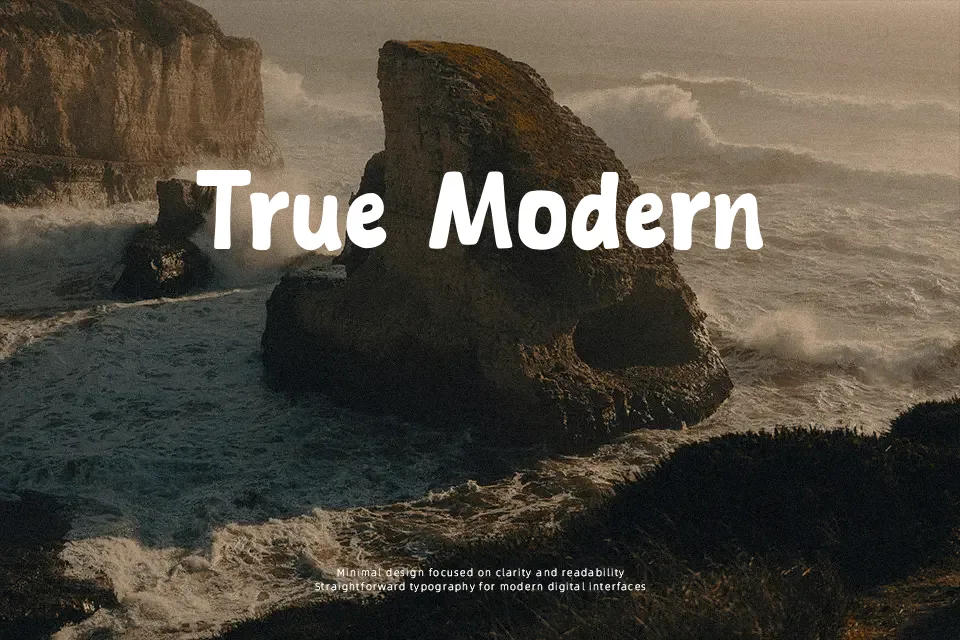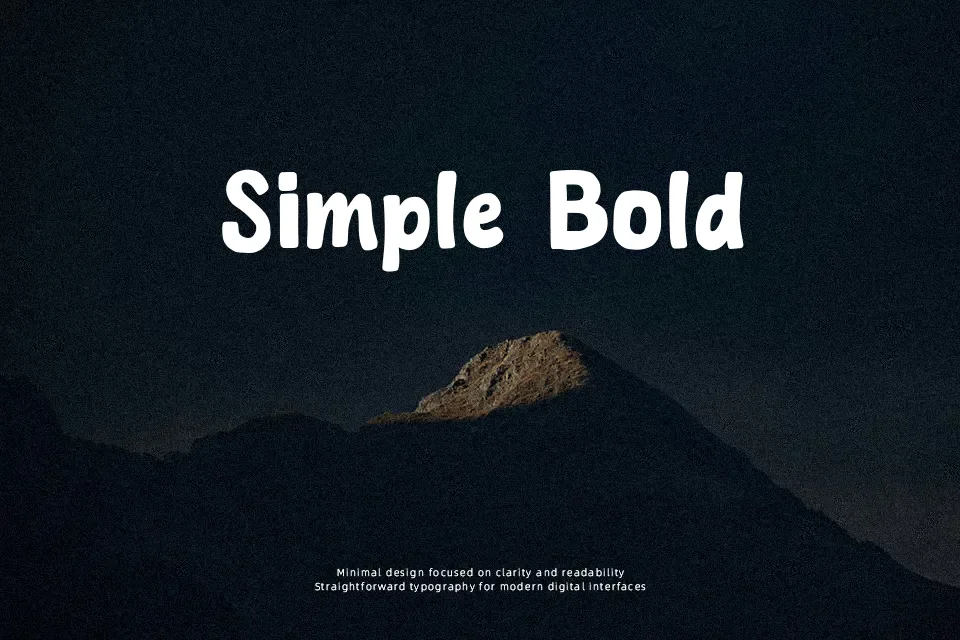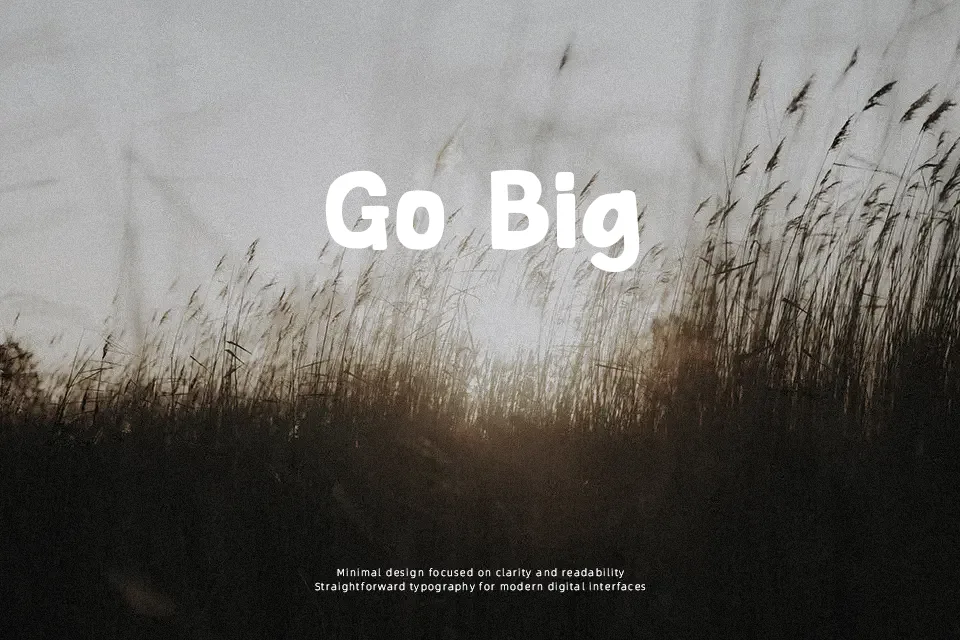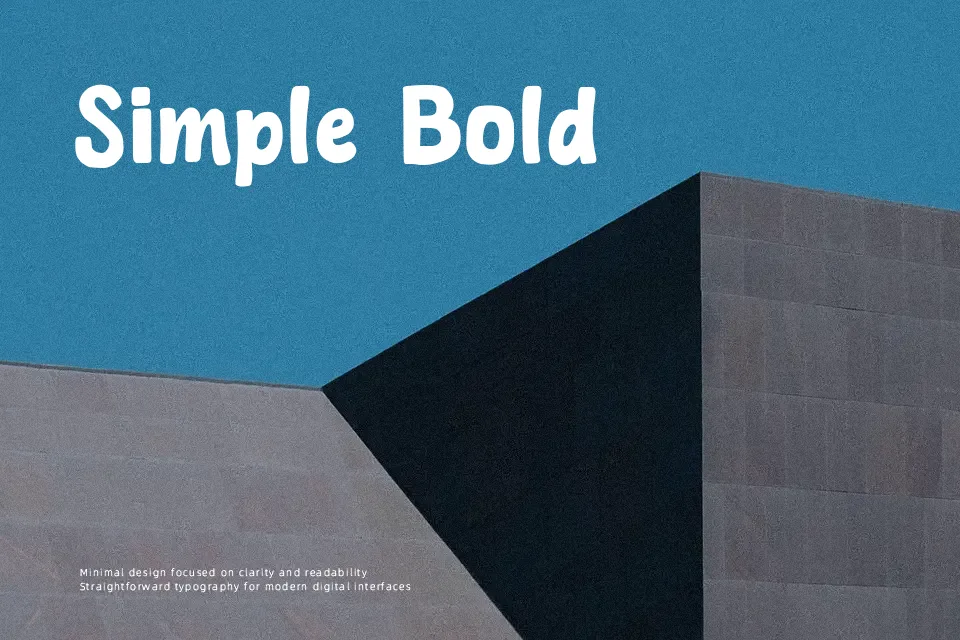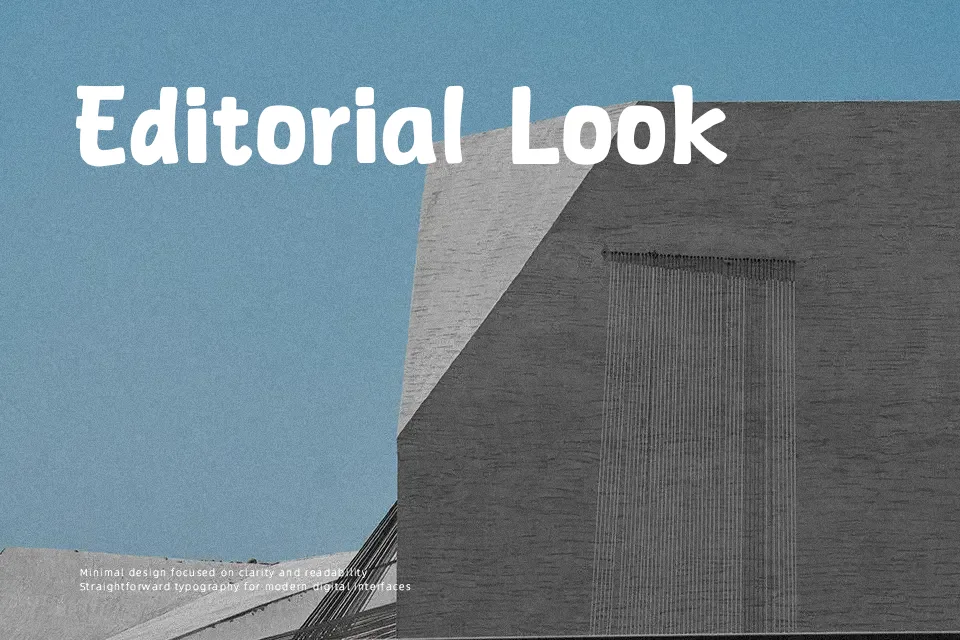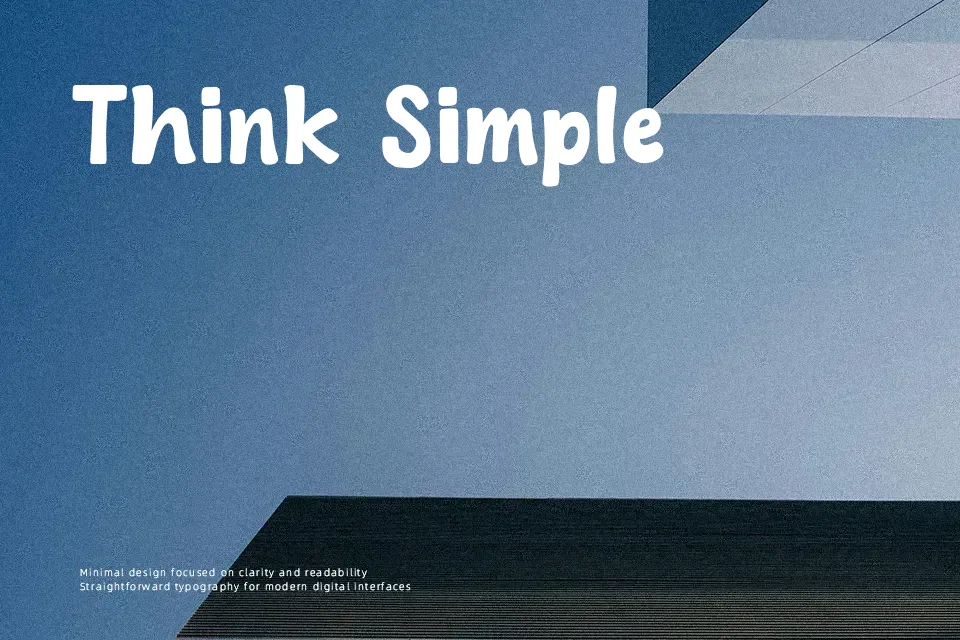
Spicy Burger Font
Spicy Burger Font uses thick, rounded letterforms with a soft cartoon structure and broad proportions. The strokes appear largely uniform, while the compact visual rhythm gives short words a dense, attention-grabbing presence. Uppercase and lowercase characters maintain a consistent, informal display feel, and the numerals are clear enough for prices or short promotional details. The font reads best in large headlines, labels, and packaging where its weight can be seen clearly. Its close, heavy forms help short titles stand out, but they can feel crowded in smaller text or longer passages. It is a practical choice for cheerful food-related graphics and kid-focused display work.
Best For: restaurant menu headers,burger packaging,food truck signage,kids party posters